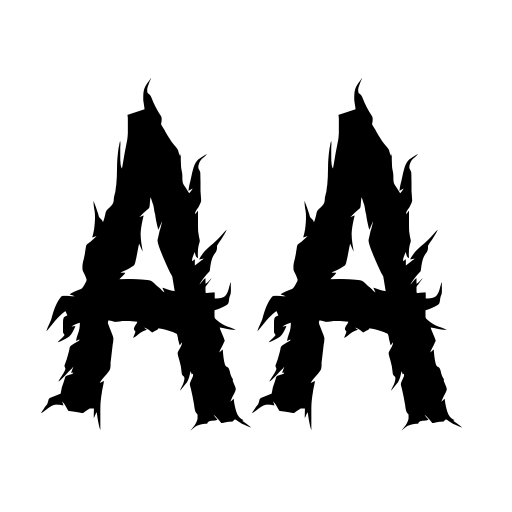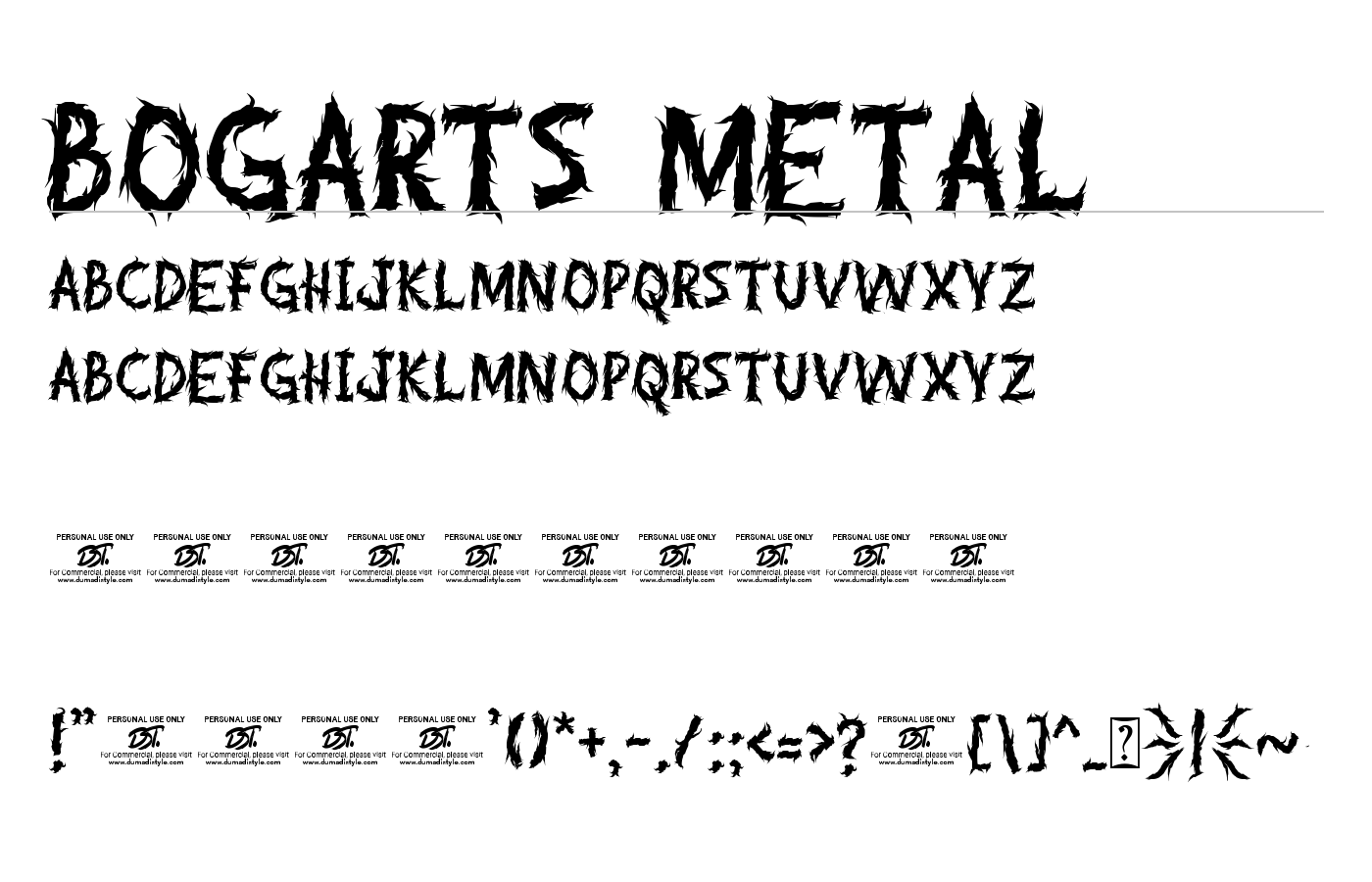
Bogarts Metal is a dramatic decorative font that features sharp, jagged edges resembling torn metal or flames, creating a bold and intense visual impact. Its condensed uppercase letterforms with irregular, spiky strokes make it perfect for striking headlines, posters, or branding that demands a rough, edgy, and aggressive style. This font works well for heavy metal music, horror themes, and any design needing a strong, rebellious personality.
Bogarts Metal Font
About Bogarts Metal Font
| Font family | Bogarts Metal Font |
| Designer | Toni Dzulham |